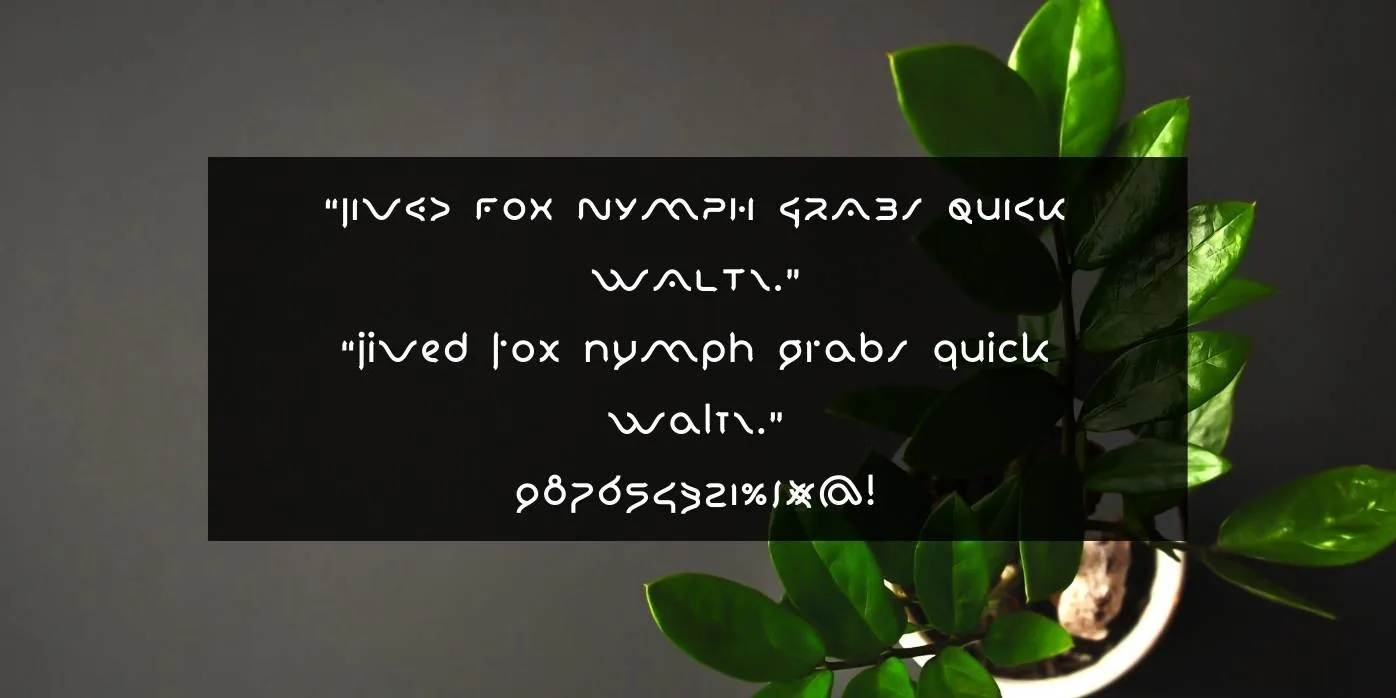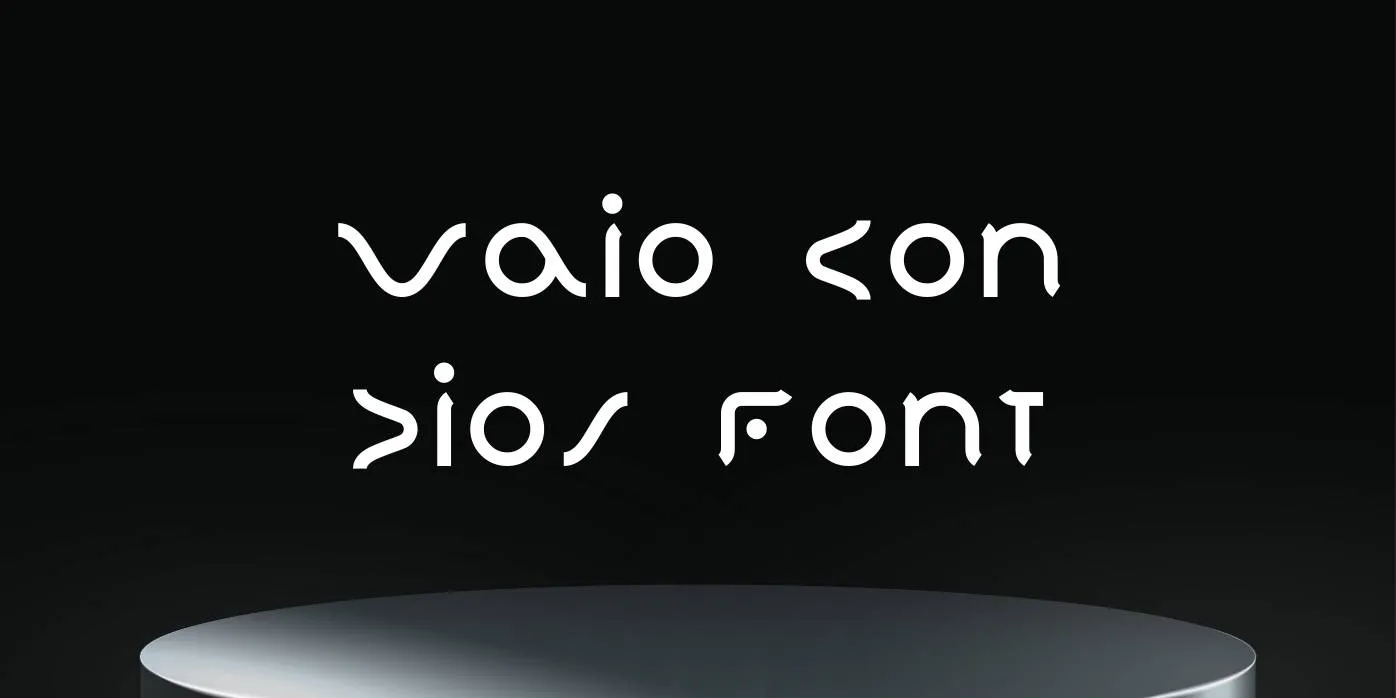
Vaio Con Dios Font
In this article, we introduce Vaio Con Dios Font which belongs to the techno font family. This typeface was developed by Kassymkulov Design. The designer has created a stylish and modern font that will be perfect for various design projects. This awesome font consists of four different styles: regular, italic, bold, and black.
Each style has its own unique look that can be used to create a variety of different designs. Another similar font which is stone font is perfect for different designs. The regular style is the most versatile and can be used for a wide range of purposes. Its copy and paste function is perfect for various designs.
The italic style is perfect for adding a touch of elegance to your designs. The bold style is perfect for making a statement. And the black style is perfect for adding an element of mystery to your designs. The online generator tool of this typeface.